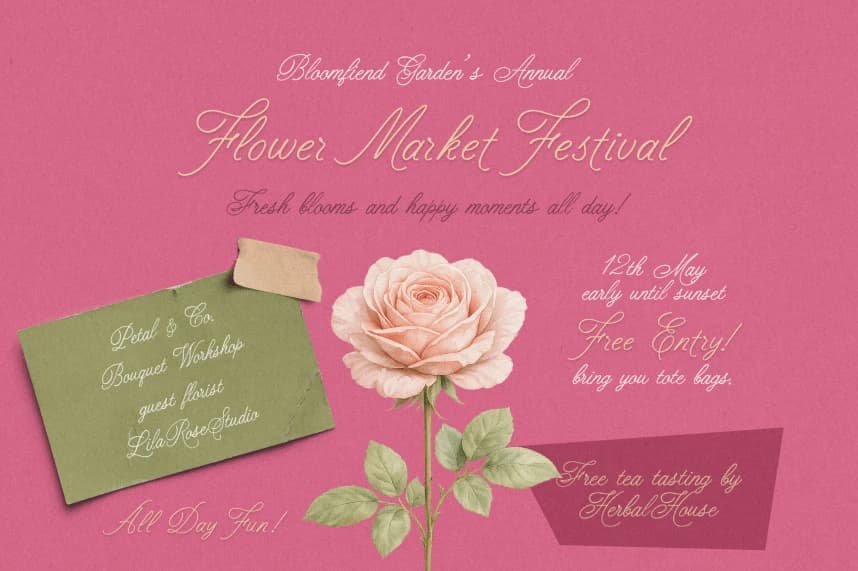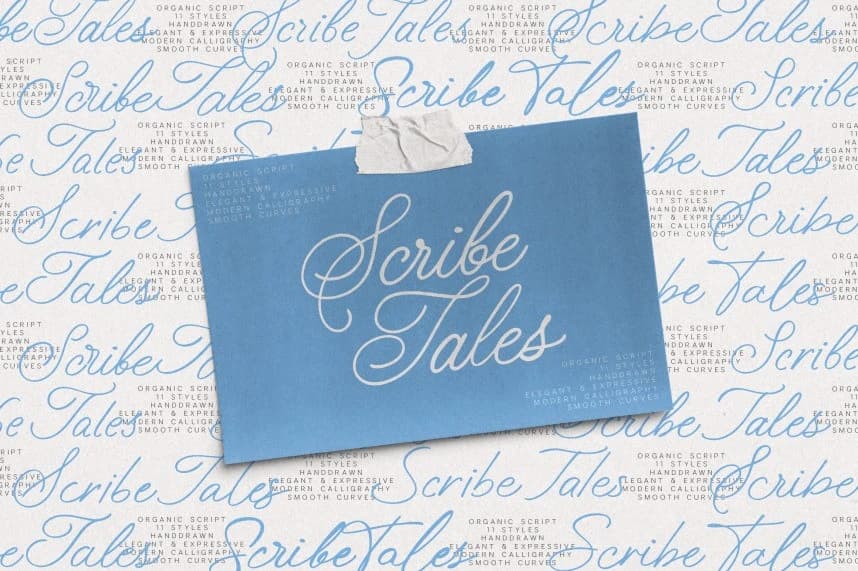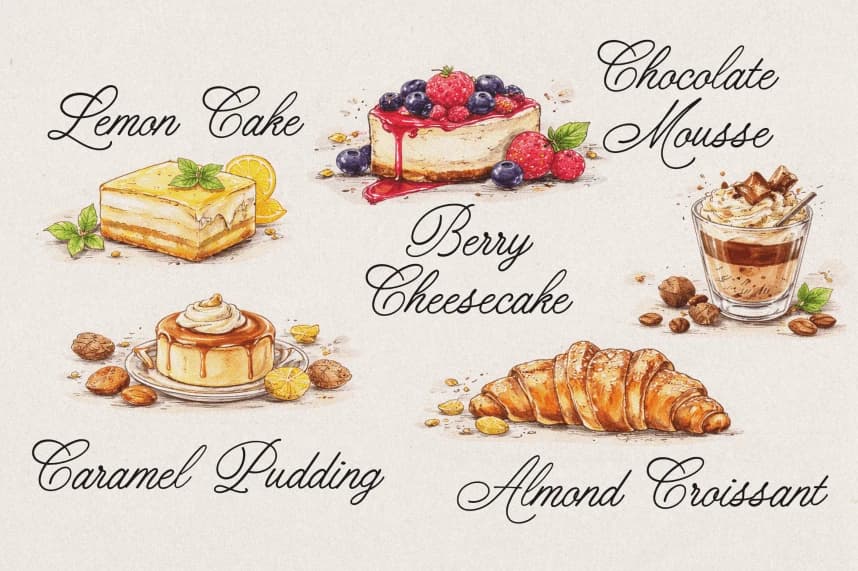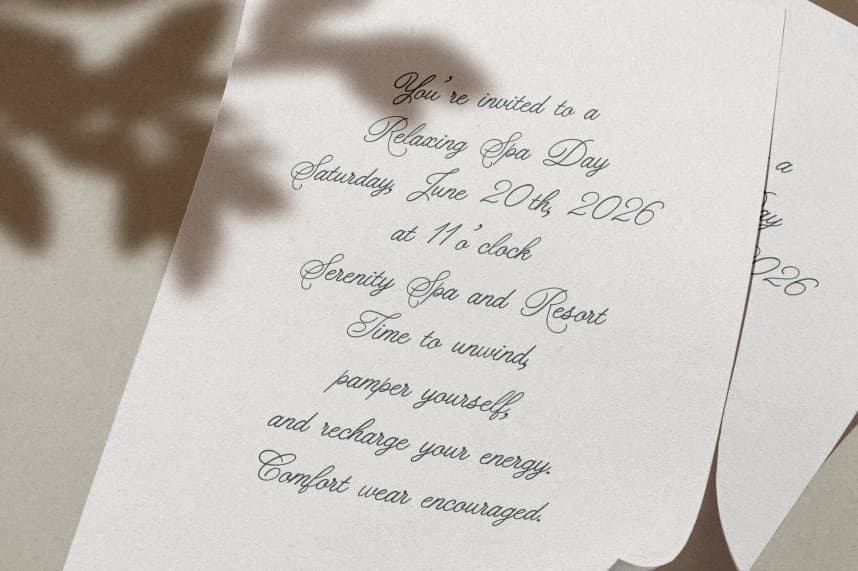
ScribeTales Font
Scribe Tales Font is a refined handwritten script font that blends natural flow with modern elegance. Designed with smooth curves and expressive strokes, it delivers a sophisticated calligraphy feel while remaining highly versatile for both digital and print design.